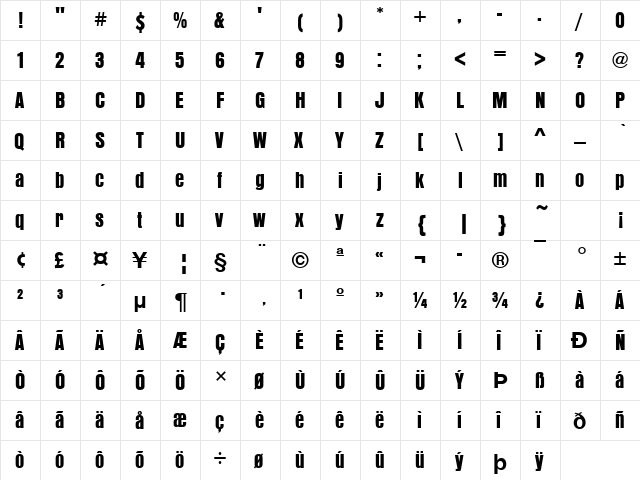
AnzeigenGroD Regular
Design Context for AnzeigenGroD Typeface
AnzeigenGroD is a composed and adaptable typeface that performs quietly and consistently across a wide range of design contexts.
Pro Tip: Use AnzeigenGroD in both headline and body roles to test its range before committing to a single application.